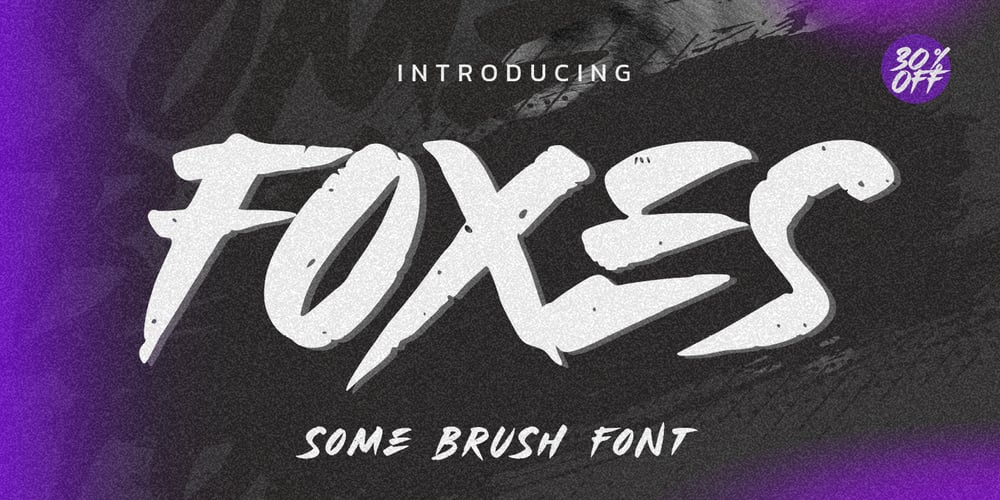
Foxes
Foxes font
Foxes Font Family was designed by Abdul Malik Wisnu, Anang Fibriyanto and published by Gassstype. Foxes contains 1 styles and family package options. Hello Everyone, introduce our new product Font FOXES This Is Some Brush Font.This is a Textured Natural Style and classy style with a clear style and dramatic movement.You can activate 13 Alternates glyphs OpenType panel.